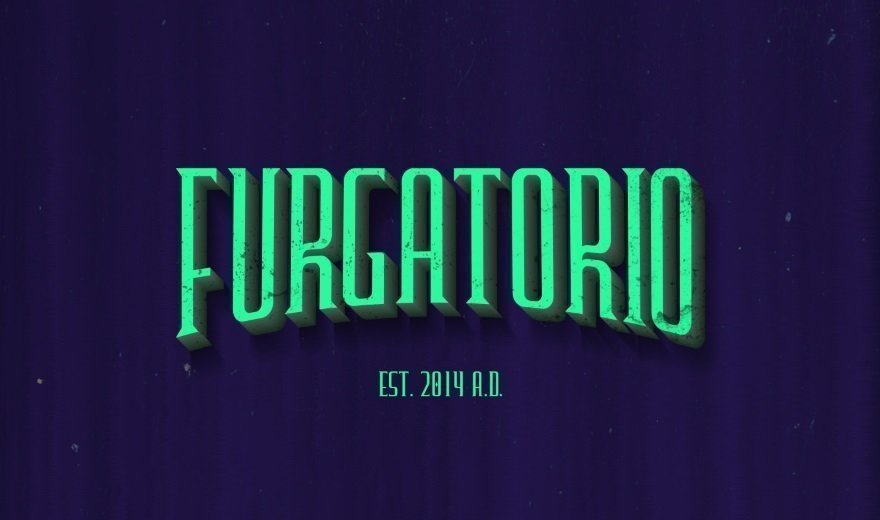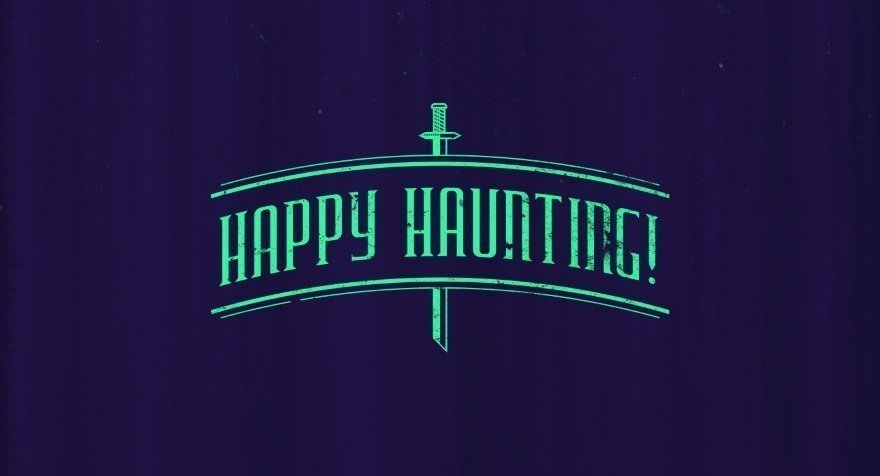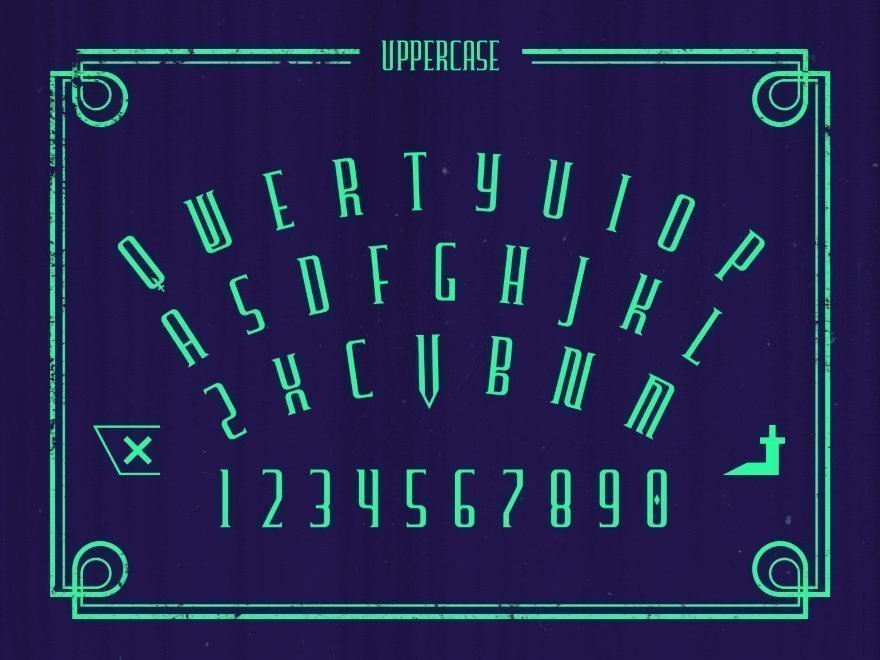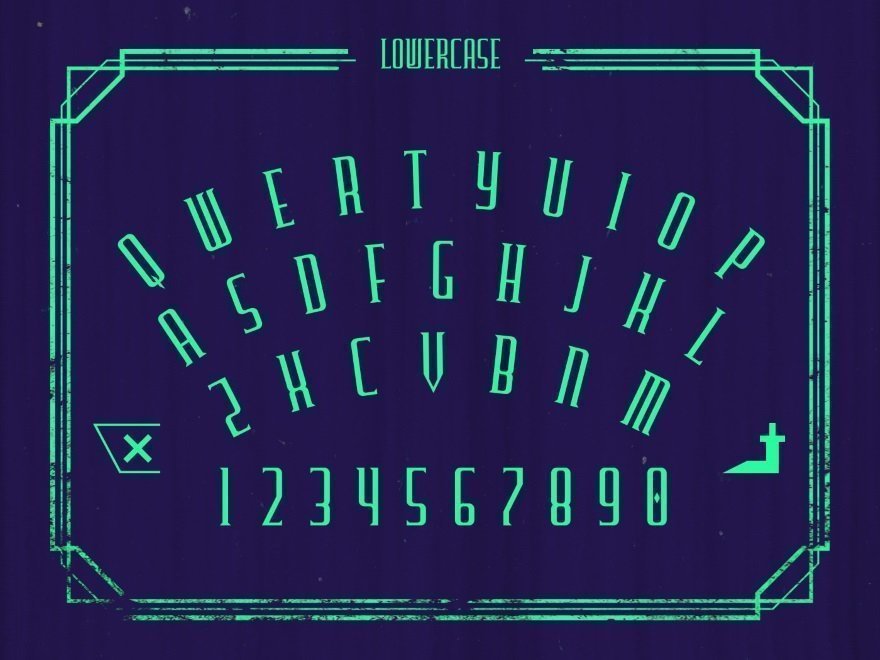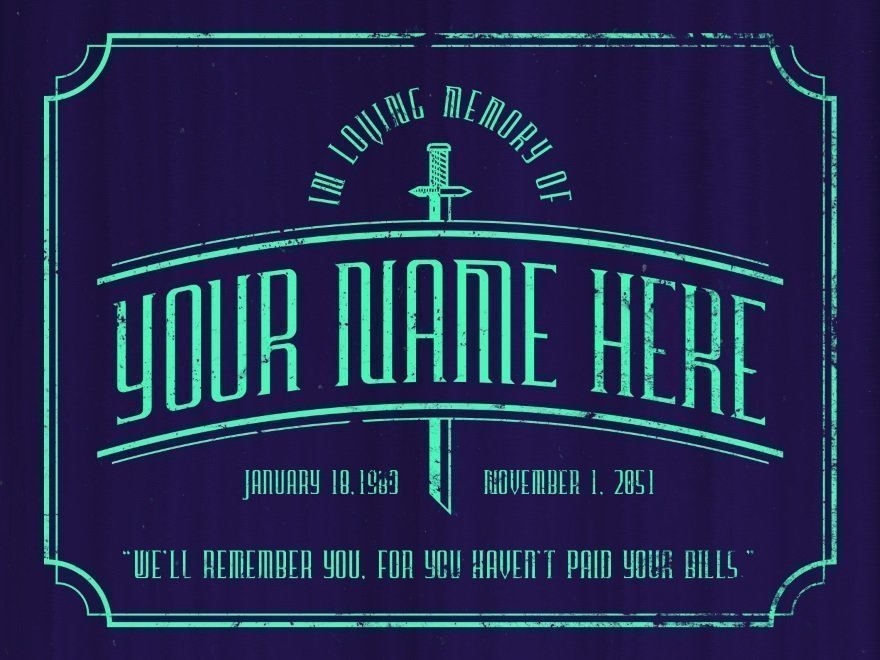
Download Furgatorio - a free uppercase font with sharp edges. This free font comes in two styles: Regular and Titling. Furgatorio is a tall font, that would look great in vintage designs. This free font will also suit any of the Halloween related designs.